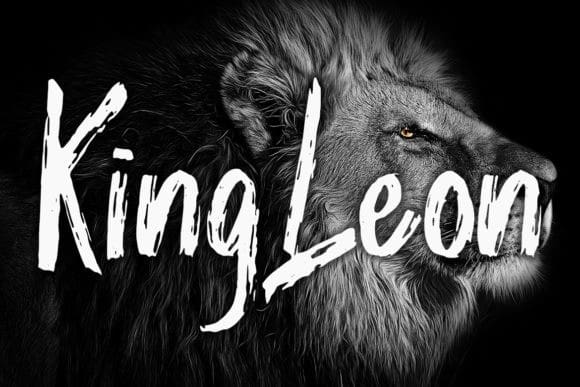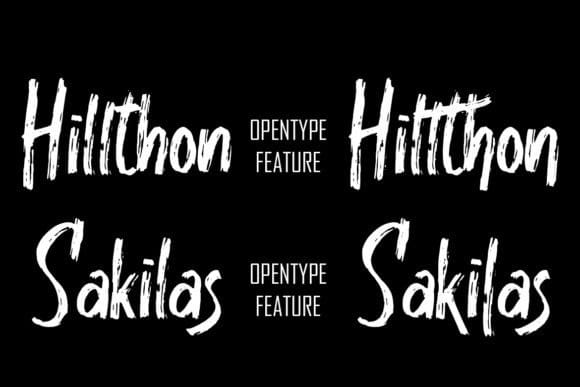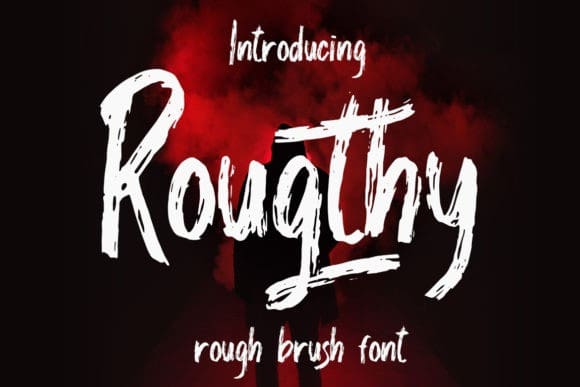
Rougthy Brush Font
Rougthy Brush Font is a flowing display font, created by using a brush pen. Clean and a little bit quirky, this font is the perfect fit for all of your logos, branding, social media, and crafty DIY projects.